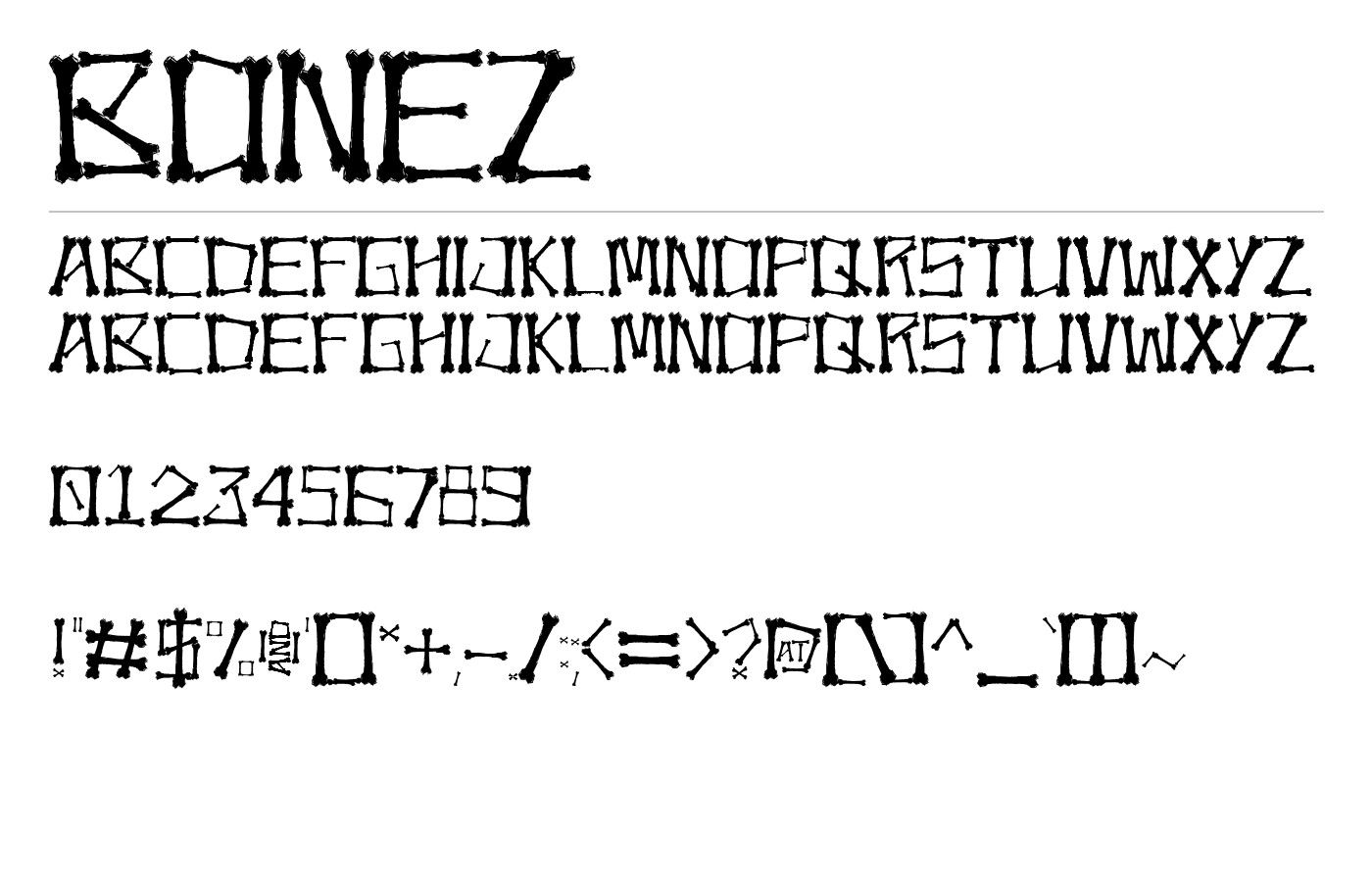
Bonez is a distinctive, hand-drawn sans serif font with an edgy, rough texture that resembles broken bones or twigs. Its tall, narrow characters with uneven strokes give it a raw, expressive personality, making it ideal for designs needing a bold, rebellious or horror-inspired vibe. Bonez works best in eye-catching headlines, posters, and themed branding where a gritty, unconventional style stands out.
Bonez Font
About Bonez Font